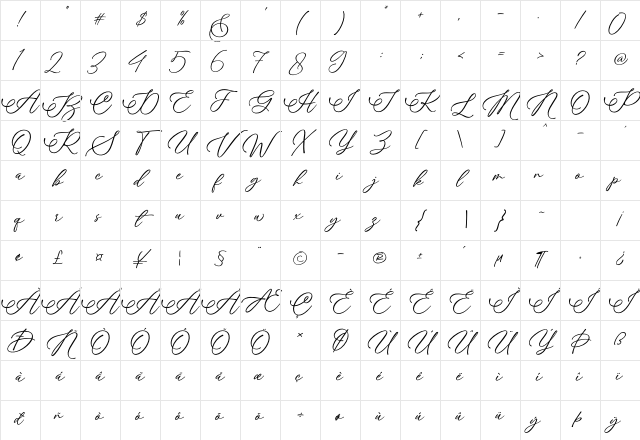
Aboutheart Regular Free Font
Aboutheart Regular
Foundry: Subectype
Designer: Rangga Singgih Subekti
Design Context for Aboutheart
Aboutheart is a composed and adaptable typeface that performs quietly and consistently across a wide range of design contexts.